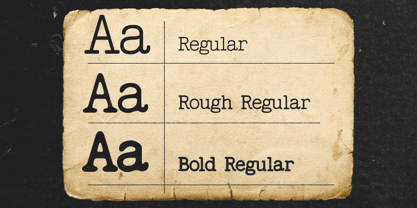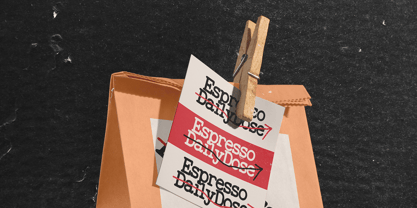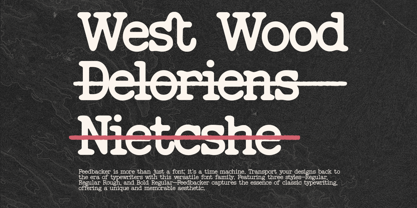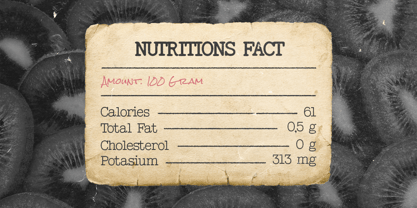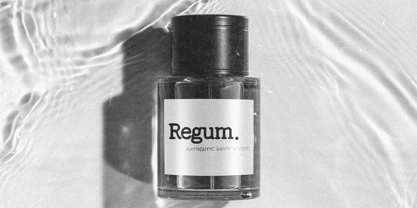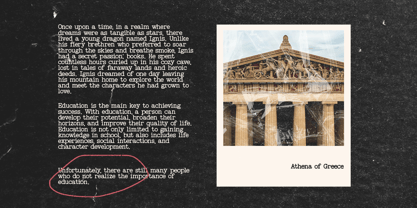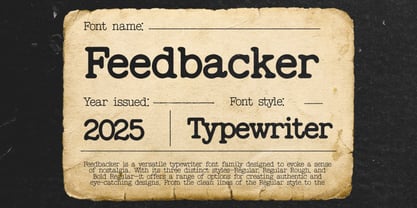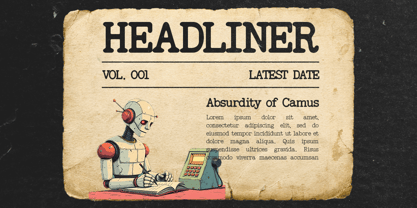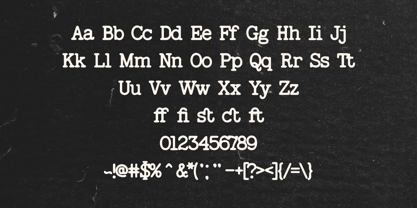
Feedbacker Typewriter
by Viswell
The Feedbacker Typewriter Font Family was designed by Najril Ilham Amrullah and published by Viswell. Feedbacker Typewriter contains 3 styles and family package options.
Introducing Feedbacker, a charming typewriter-inspired font that brings a vintage flair to modern designs. With its authentic texture and nostalgic vibe, this font is perfect for creating everything from retro-style posters to heartfelt letters. Whether you need the clean precision of Regular, the worn-in charm of Rough, or the bold statement of Bold Regular, Feedbacker delivers versatility and personality. Capture the essence of classic typewriters and elevate your projects with a timeless touch. Perfect for branding, editorial work, and everything in between!
Designers: Najril Ilham Amrullah
Publisher: Viswell
Foundry: Viswell
Design Owner: Viswell